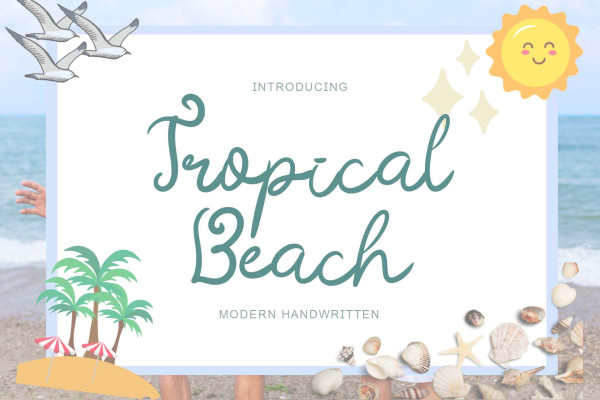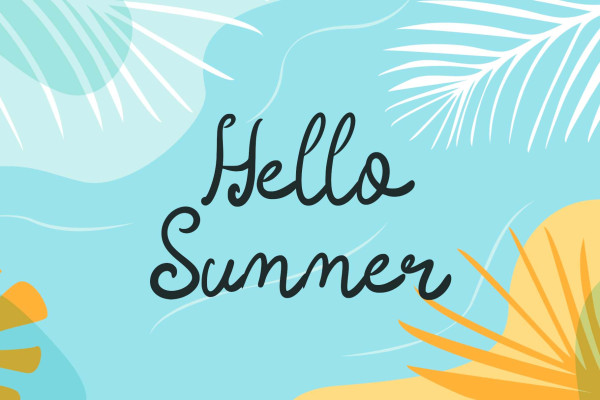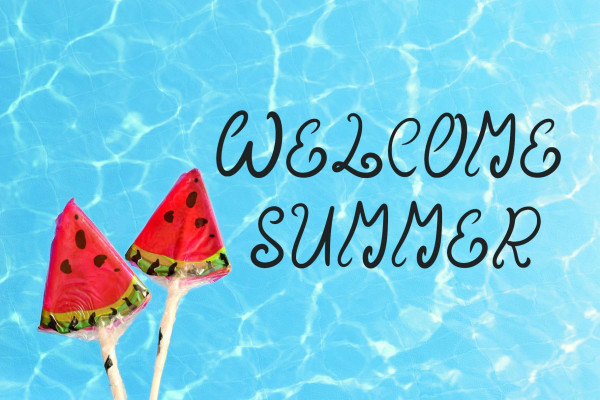
Tropical Beach Font
Tropical Beach Font is a very simple handwritten font that is curly in uppercase. Equipped with uppercase, lowercase, numerals, punctuation, and multilingual support. This font is perfect for summer, holidays, vacations, father’s day, teachers, the 4th of July, graduation, Christmas, and others.